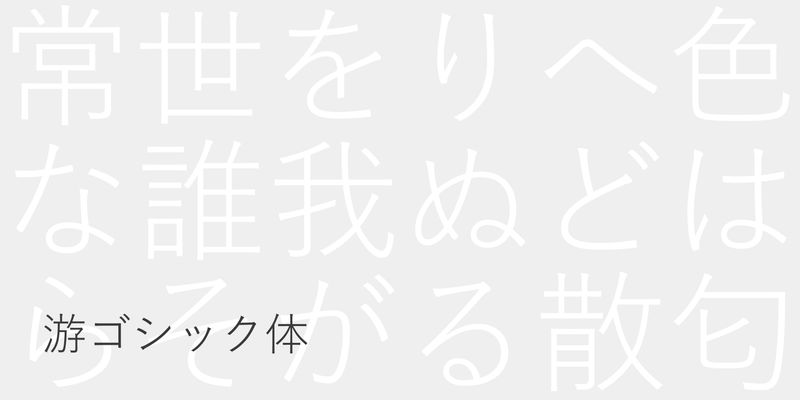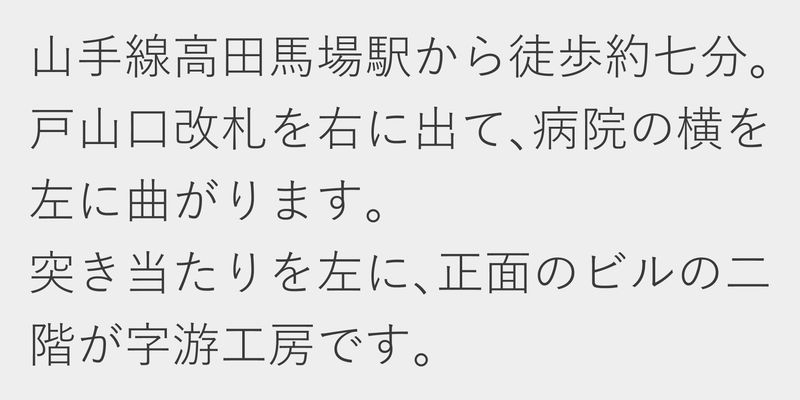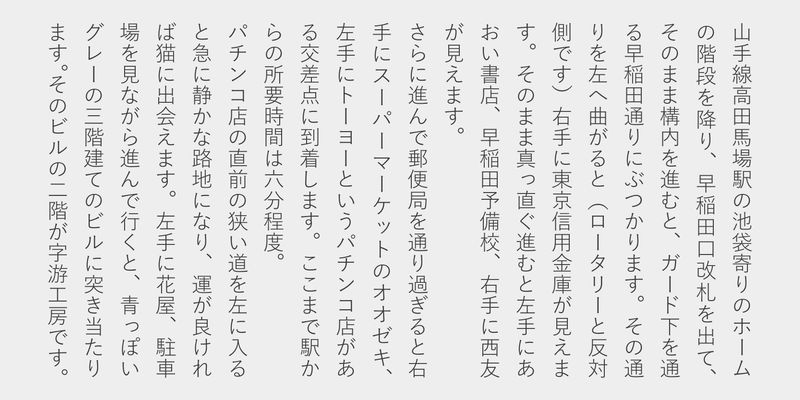
Yu Gothic is a standard sans serif type family designed to be highly readable for setting a large volume of text. Its character size is designed relatively small and has comfortable letter space between each letter that individual character stands out and is able to maintain legibility in typesetting.
Morisawa Inc. is Japan’s leading font foundry that has never wavered from its commitment to undertaking research and development in typography since its establishment in 1924 – the year it invented the first Japanese phototypesetting machine. The company provides font licenses for over 1,500 typefaces of Japanese and multi-script, web font services, embedded fonts, and multilingual e-magazine/book solution services. Their library includes typefaces from TypeBank and its group company Jiyukobo.